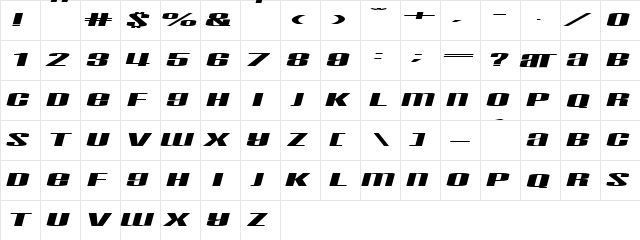
Taskeksem inflamerat Regular
Design Context for Taskeksem inflamerat Typeface
Taskeksem inflamerat is a composed and adaptable typeface that performs quietly and consistently across a wide range of design contexts.